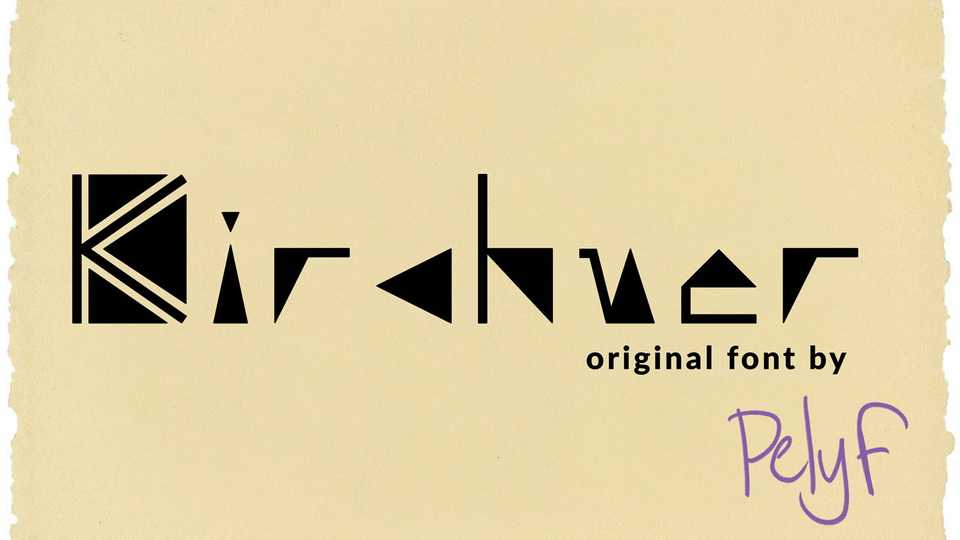
Download Kirchner font, a stylistic typeface that makes use exclusively of straight lines and triangles. Its choppy and aggressive style is inspired by the expressionism movement, especially by the wooden engravings of said style.
Designer: Pely F